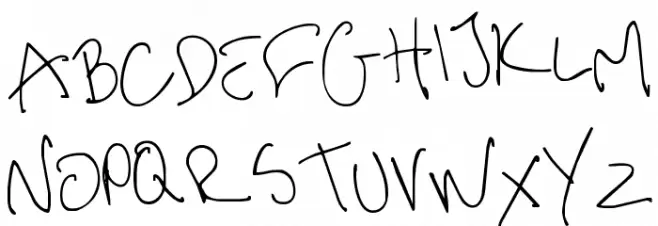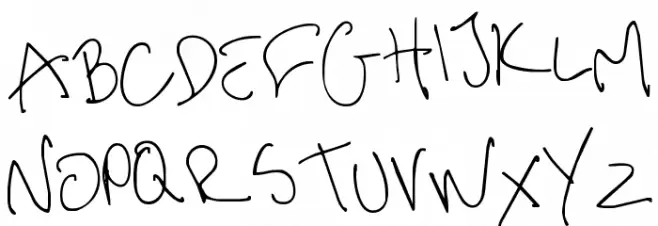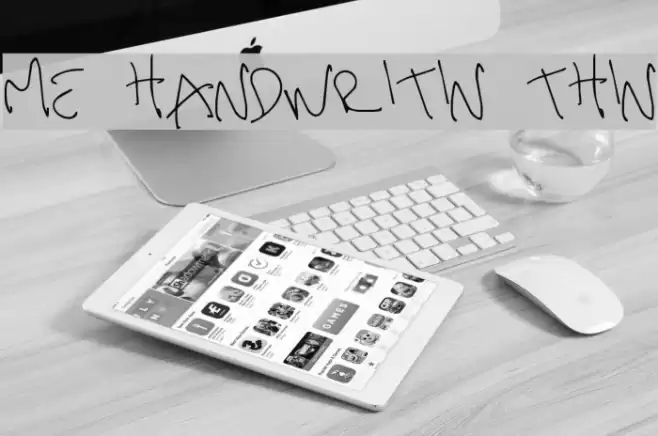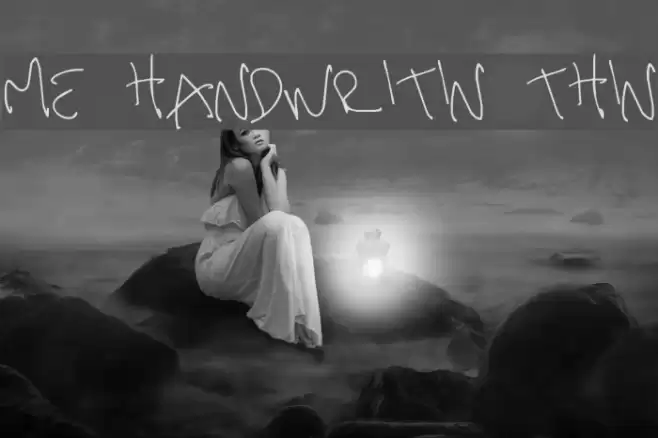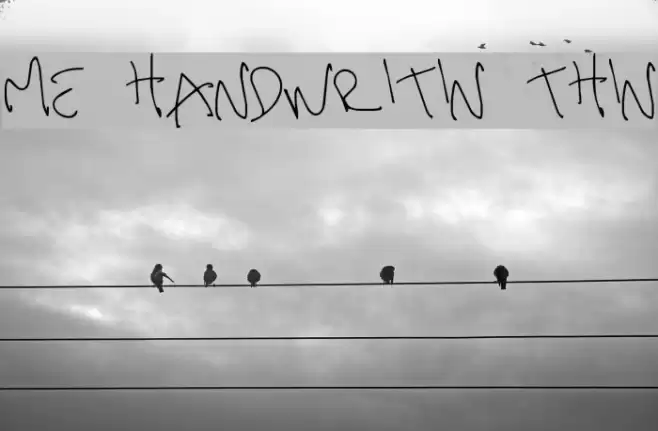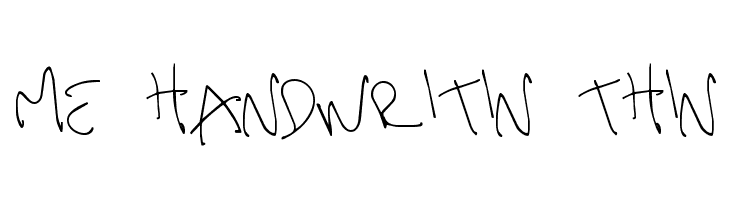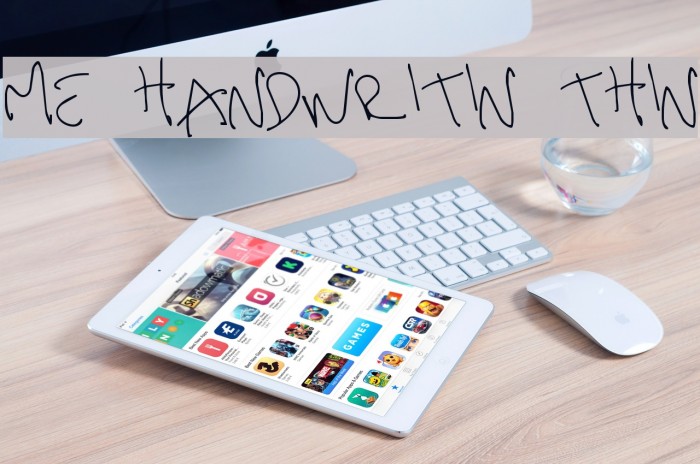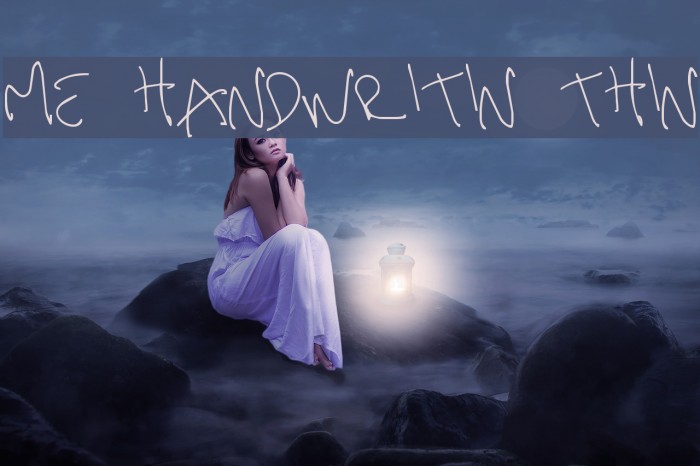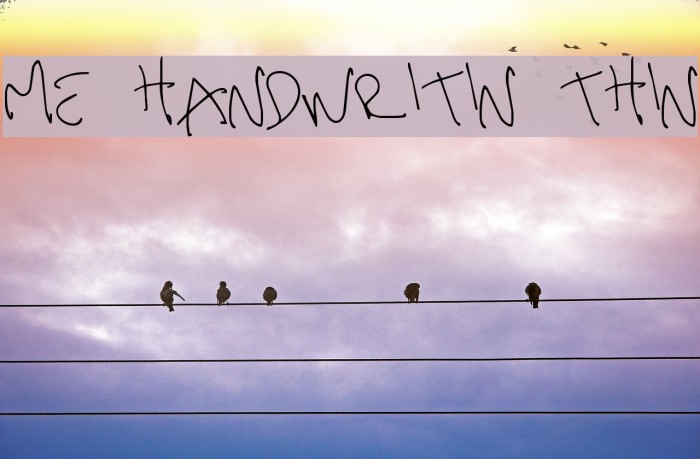
me handwritin Thin
This font exudes a casual, handwritten style, characterized by its thin, flowing lines that mimic natural handwriting. Each letter is distinct yet cohesive, providing a personal touch that feels both informal and approachable. The strokes vary slightly in thickness, adding to the organic feel of the script. The characters are slightly slanted, enhancing the handwritten effect, while maintaining legibility. This font is perfect for projects that require a personal, human touch, such as greeting cards, personal notes, or creative projects that aim to convey warmth and authenticity.
A thin, casual handwritten font with a personal and approachable style.
- Proposed Projects: Ideal for greeting cards, personal notes, invitations, and creative projects needing a warm, personal touch.
- Weight: Light
- Overall Style: Casual, Personal
- Use Case: Greeting cards, Personal notes, Invitations